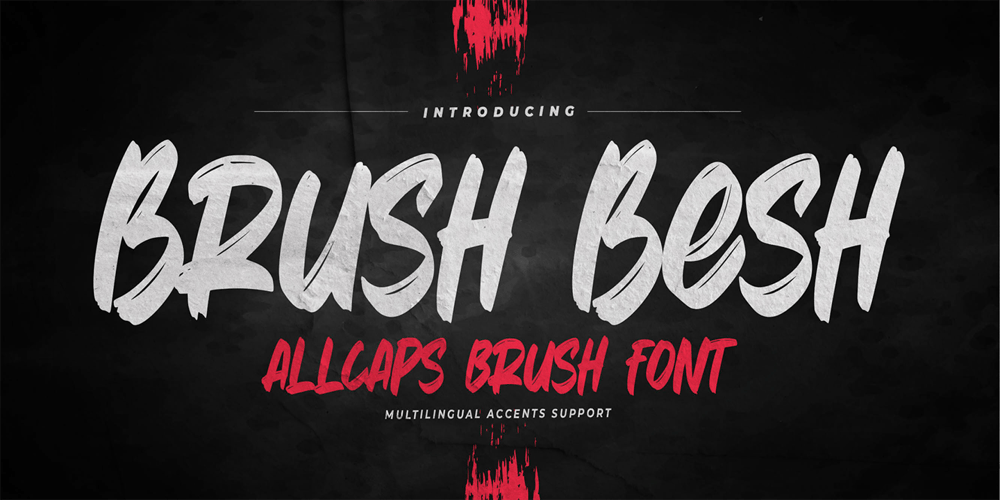
Brush Besh Font Family was designed by Abdul Malik Wisnu, Anang Fibriyanto and published by Gassstype. Brush Besh contains 1 styles and family package options. Hello Everyone, introduce our new product Font Brush Besh is AllCaps Brush Font.This is a Textured Natural Style and classy style with a clear style and dramatic movement.This font Brush Besh is great for your next creative project such as logos, printed quotes, invitations, cards, product packaging, headers.